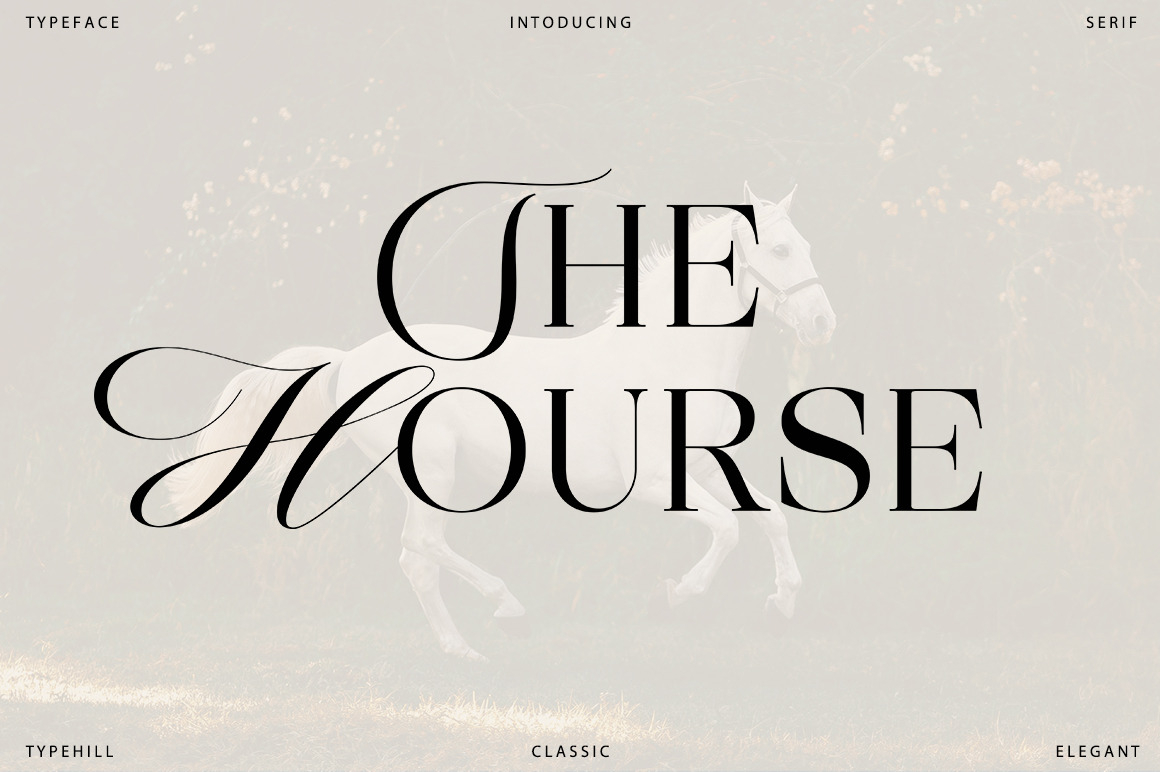
The Hourse Serif Italic
The Hourse Serif is a serif font family. This typeface has two styles and was published by Typehill.
The Hourse Serif is a Contemporary, Classy, and Warm Serif typeface. The Hourse Serif has a Clean and Smooth details. The design was intended to improve upon the Legibility.
It’s a perfect choice for Branding, Magazines, Posters, Advertising, Print, Packaging, Headlines, Logos, Web Design etc.